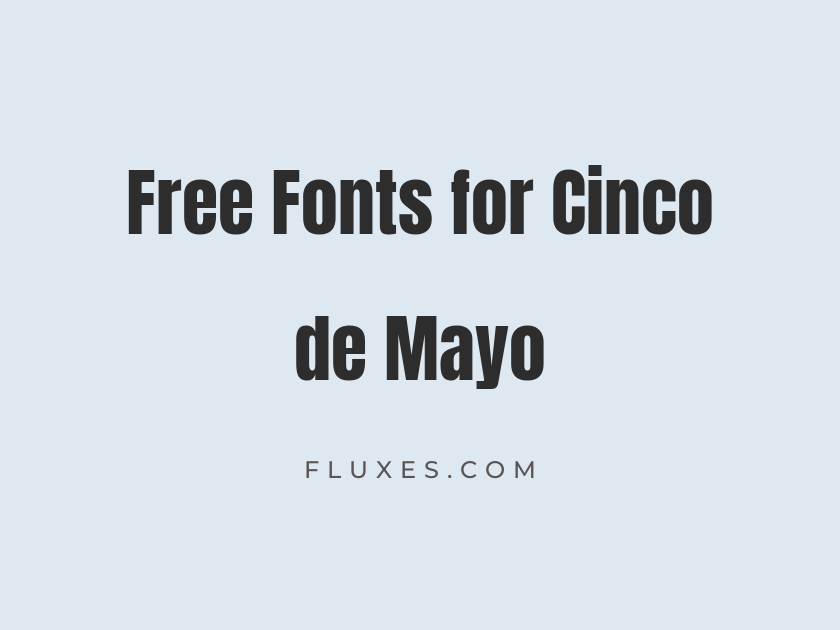
64 Best Free Fonts for Cinco de Mayo
Cinco de Mayo design work thrives on typography with personality: bold poster letterforms for flyers and banners, festive scripts for invitations, hand-lettered marks for taco truck menus, and the occasional elegant serif for a proper sit-down celebration. Every font recommended here is free to download through Google Fonts, so whether you’re building a fiesta flyer, a papel picado inspired banner, a bar menu, or a lucha libre style poster, you can grab the file and start setting type today.
Because the holiday spans everything from backyard barbecues to upscale restaurant promotions, the styles below range from loud and rounded to restrained and formal. Think of this as a working toolkit: pick one voice for headlines, another for body copy, and maybe a script for the finishing flourish.
1. Anton
Anton is the font equivalent of a shout across a crowded plaza. Its ultra-condensed, heavyweight letterforms are built for headlines that need to dominate a poster from across the room, making it a favorite for event flyers and banner graphics.
2. Bebas Neue
Few free fonts get more mileage in event design than Bebas Neue. All caps, tightly tracked, and endlessly versatile, it works equally well on a chalkboard sandwich sign or a slick digital invitation.
3. Alfa Slab One
Thick, blocky, and a little bit stubborn looking, Alfa Slab One brings a heavy slab-serif punch that suits food truck signage and bold headline treatments. It reads best large; at small sizes the chunky strokes start to feel cramped.
4. Luckiest Guy
This is a cartoon-inflected display face with a lot of bounce, ideal for playful flyers, party invitations, and kids’ menu headers. It pairs naturally with bright color and confetti graphics rather than anything restrained.
5. Bungee
Bungee borrows its attitude from urban signage and Latin American street lettering, all thick geometric caps and confident stance. It’s a strong pick for anything with a block-party or street-fair energy.
6. Bungee Shade
The shadowed sibling of Bungee, this version adds a layered depth effect that makes headlines pop off a poster without any extra design work. Save it for short bursts of text; the layered effect gets muddy in long headlines.
7. Titan One
Rounded, inflated, and unapologetically fun, Titan One looks like it was drawn for a piñata box. It’s a natural for children’s party invitations and festival branding aimed at a younger crowd.
8. Passion One
Passion One rounds off its heavy strokes just enough to feel friendly rather than aggressive, which makes it a solid workhorse for restaurant specials boards and social graphics announcing a fiesta.
9. Fjalla One
This condensed sans carries itself with a bit more restraint than most fiesta fonts, which makes it useful for subheadings and details that need to stay legible under a louder headline font.
10. Staatliches
Staatliches has the compressed, slightly worn look of a hand-painted sign lettered in one confident pass. It’s a great match for taco stand signage and anything meant to feel a little scrappy and street-level.
11. Oswald
Clean, condensed, and reliable, Oswald covers the practical side of event design: schedules, menus, and body copy that needs to stay legible next to louder display type. It’s an easy pairing partner for almost every script or slab on this list.
12. Squada One
Squada One rounds off its bold geometric caps just enough to feel approachable, which suits app icons, badges, and short punchy headlines for fiesta promotions.
13. Bowlby One
This is a heavyweight display face with soft, almost inflated curves, giving it a friendly, welcoming feel that suits community festival branding aimed at families.
14. Chango
Chango has a chunky, cartoonish swagger that recalls hand-painted lucha libre posters and Mexican wrestling flyers. Use it sparingly, as those thick strokes can overwhelm anything longer than a few words.
15. Rye
Rye is one of the great cantina fonts: a slab serif with tapered strokes and a stitched, hand-carved feel that recalls old Western saloon signage and Southwestern lettering traditions. It sits comfortably on taco truck menus, brewery labels, and rustic wedding invitations, and it has become a go-to alternative for designers hunting for a free take on classic wood-type lettering.
Because of its bold personality, Rye works best as a headline font paired with a plain sans-serif for body copy.
Whatever the project, limit yourself to two or three fonts total. The personality in these faces is strong enough that a small combination goes a long way.